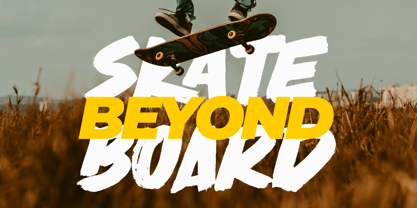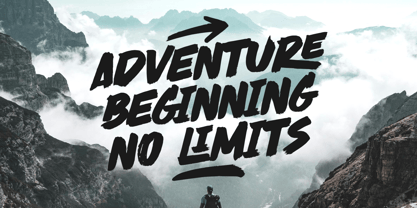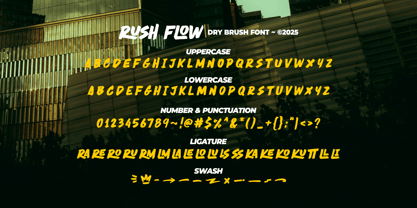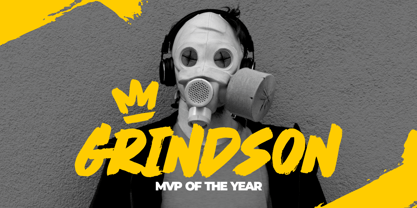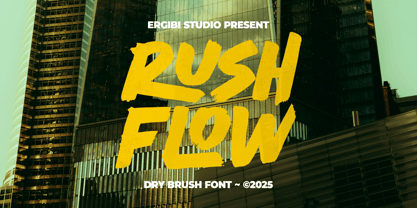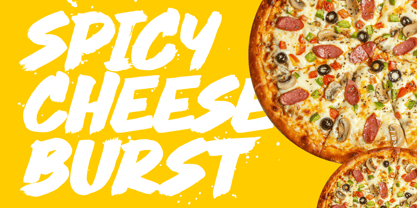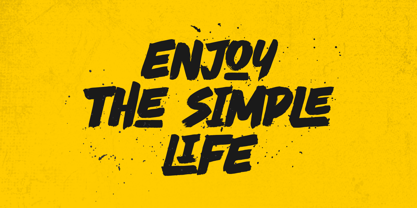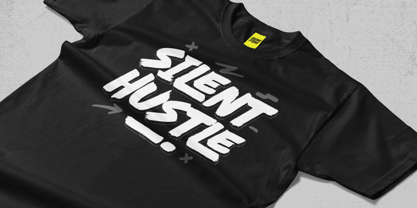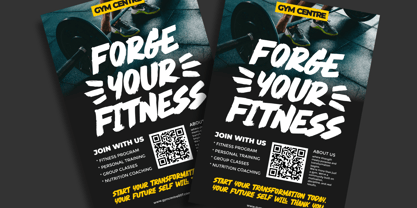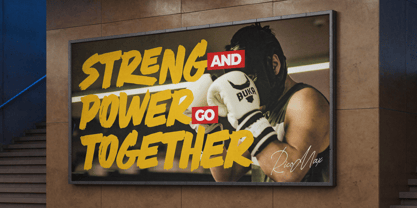
Rush Flow
by Ergibi Studio
The Rush Flow Font Family was designed by Riyadh Rahman and published by Ergibi Studio. Rush Flow contains 1 styles.
Rush Flow is a dry brush font, adrenaline-charged typeface built with thick brush strokes and gritty character. Fully uppercase and unapologetically loud, it brings raw energy to your design. Whether for streetwear, posters, branding, quotes, or packaging, Rush Flow injects an urban attitude that commands attention. Each letter bursts with personality, making sure your message hits hard and stands out.
Designers: Riyadh Rahman
Publisher: Ergibi Studio
Foundry: Ergibi Studio
Design Owner: Ergibi Studio